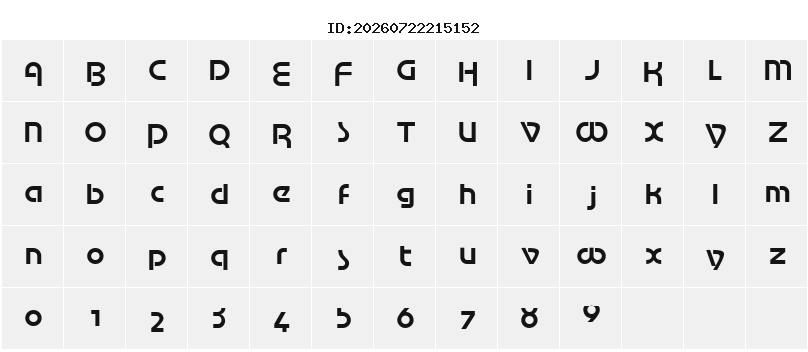
About Motter Tektura.ttf
Motter Tektura.ttf is a modern, elegant sans-serif font designed for ultimate readability and visual harmony. Perfect for branding, headlines, web design, and print materials.